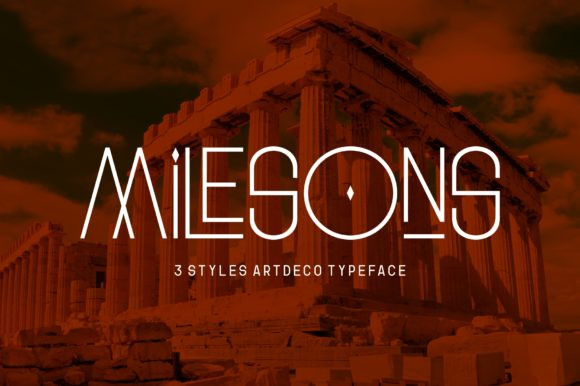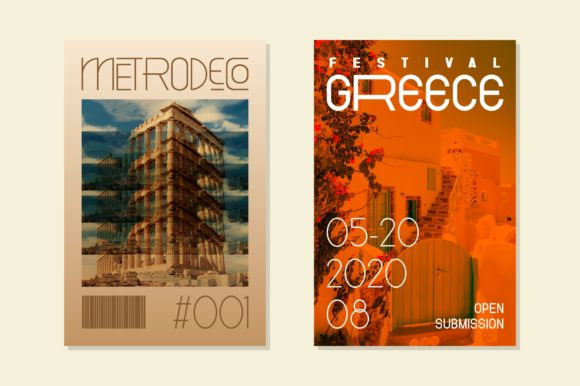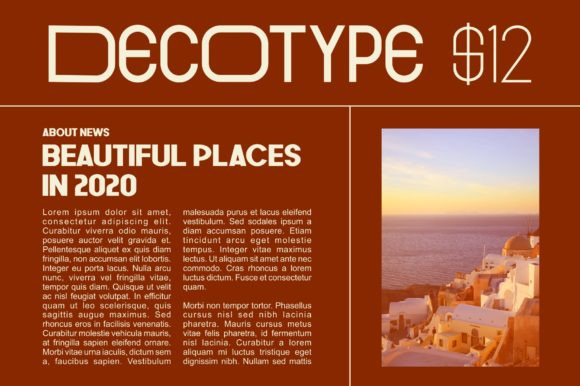
Milesons Font
Milesons is a simple and minimalist sans serif font. It is suitable to a wide range of graphic design projects, prints, logos, posters, t-shirts, packaging and much more!